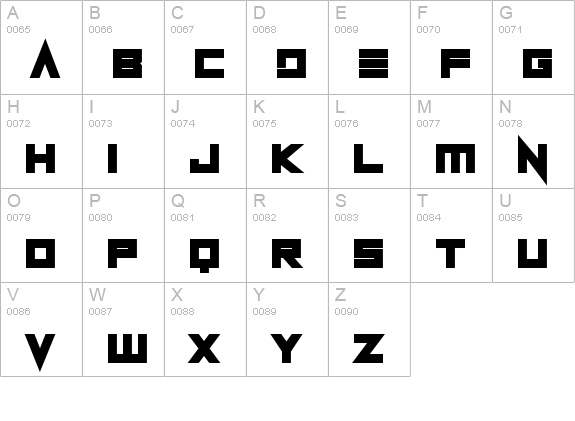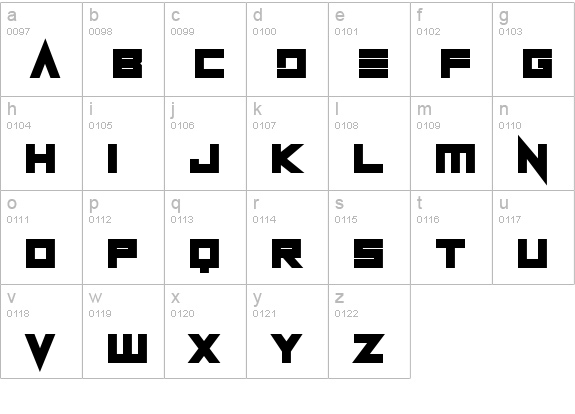
Never Surrender Font Details
Never Surrender is a donationware font in the Modern > Techno category, designed by Darrell Flood. It has been downloaded 136 times and is available for Windows, Mac and Linux.
Never Surrender font is a bold and powerful typeface that exudes strength and determination. With its sharp edges and strong presence, this font is perfect for making a statement in any design project. Whether you're creating posters, logos, or branding materials, Never Surrender font will command attention and leave a lasting impact.